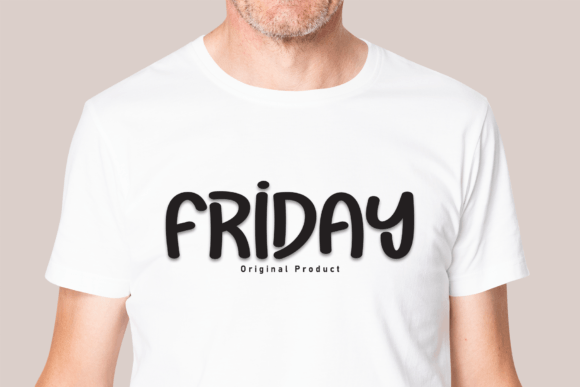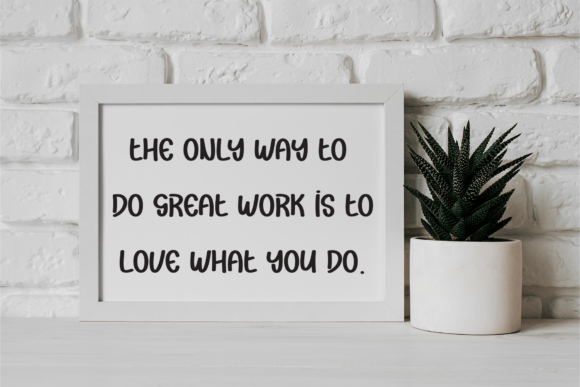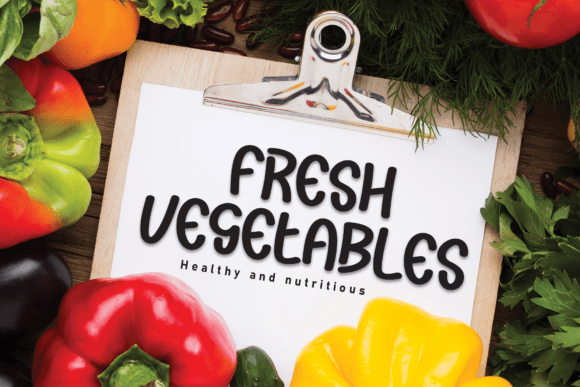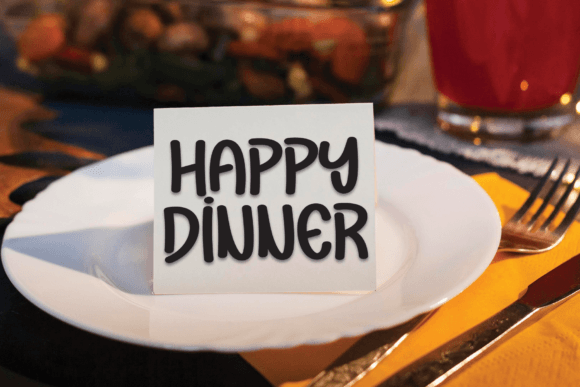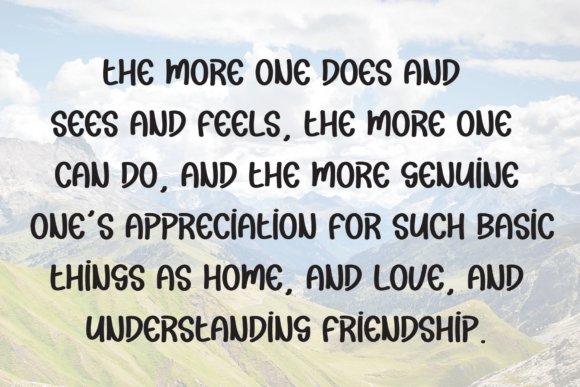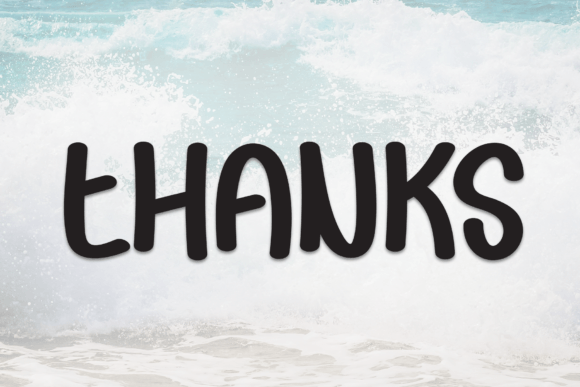
Get Ready to Ride the Tides of Creativity with Beach Waves Font
Have you ever sat by the ocean, watching the waves gently roll in, and felt the urge to create something that captures their carefree spirit? That’s exactly what Beach Waves Font is all about – infusing your designs with the natural, effortless charm of the beach.
As a handwritten font, Beach Waves Font is the perfect tool for designers who want to add a personal touch to their projects. Its unique style is incredibly versatile, making it a great fit for a wide range of designs, from greeting cards and invitations to social media graphics and advertising campaigns. Whether you’re a seasoned pro or just starting out, Beach Waves Font is sure to inspire your creativity and help you stand out from the crowd.
Beach Waves Font Key Features
- Unique Characteristics: Beach Waves Font features a distinctive, hand-drawn wave design that adds a touch of elegance and sophistication to any text-based project.
- Font Style: The font is available in regular and bold weights, allowing designers to create contrast and emphasis in their designs.
Designer Review: Beach Waves Font
When I first laid eyes on Beach Waves Font, I was immediately drawn to its ✨ unique, hand-drawn aesthetic. The font has a relaxed, beachy vibe that’s perfect for branding and design projects that require a carefree, summery feel. The font’s varying line widths and subtle imperfections give it a human touch that’s hard to find in more uniform digital fonts.
The Beach Waves Font’s versatility is another major plus. It’s available in a range of weights and styles, making it easy to use in a variety of contexts. I particularly appreciate the included ✨ alternate characters and swashes, which add an extra layer of personality to your designs.
- ⚠️ The font’s hand-drawn nature can sometimes make it difficult to read at small sizes or in low-resolution contexts.
- ⚠️ The font’s unique style may not be to every designer’s taste, and some users may find it too quirky or unconventional.
- ⚠️ The font’s range of weights and styles may not be as extensive as some other popular fonts, which could limit its versatility in certain situations.
Overall, I think Beach Waves Font is a great addition to any designer’s toolkit. While it may not be perfect, its unique aesthetic and versatility make it a great choice for projects that require a relaxed, beachy vibe. With a little care and attention, Beach Waves Font can help you create designs that are truly unforgettable.
Tip: Use the Beach Waves Font to add a touch of whimsy to your designs, such as social media graphics, blog posts, or flyers.
Tip: Use the Beach Waves Font to add a unique touch to your illustrations, logos, or typography projects.
Tip: Use the Beach Waves Font to add a playful touch to your presentations, reports, or documents.
The Beach Waves Font is perfect for:
- Summer-themed designs, such as beach or pool party invitations.
- Whimsical illustrations, such as cartoons or comics.
- Playful typography projects, such as quotes or song lyrics.
The Beach Waves Font is a popular choice for designers due to its unique, wavy texture that adds a touch of elegance and sophistication to any design. However, there are other alternatives that can achieve a similar effect or offer unique characteristics that may suit specific design needs.
Q: What is the recommended font size for using the Beach Waves Font?
The recommended font size for using the Beach Waves Font is between 12 and 24 points. This allows the font to be easily readable while maintaining its unique, beachy feel. However, you can experiment with different font sizes to find the perfect balance for your design.